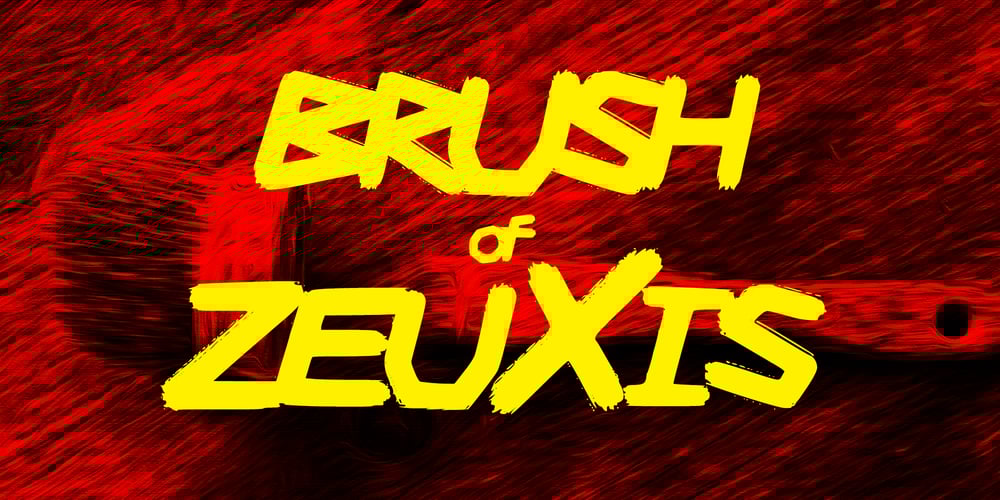
Brush Of Zeuxis
Brush Of Zeuxis font
Brush Of Zeuxis Font Family was designed by Nasir Baradari and published by nasirbaradari. Brush Of Zeuxis contains 1 styles and family package options. Brush of Zeuxis is a font inspired by the ancient painter Zeuxis, this really cool-looking brush stroke font is here to make your designs look way better and cooler. This font can be used for as many things as you want, it can be used on a thriller poster or a music album, this font will look very cool in a rock album, and many, many more!